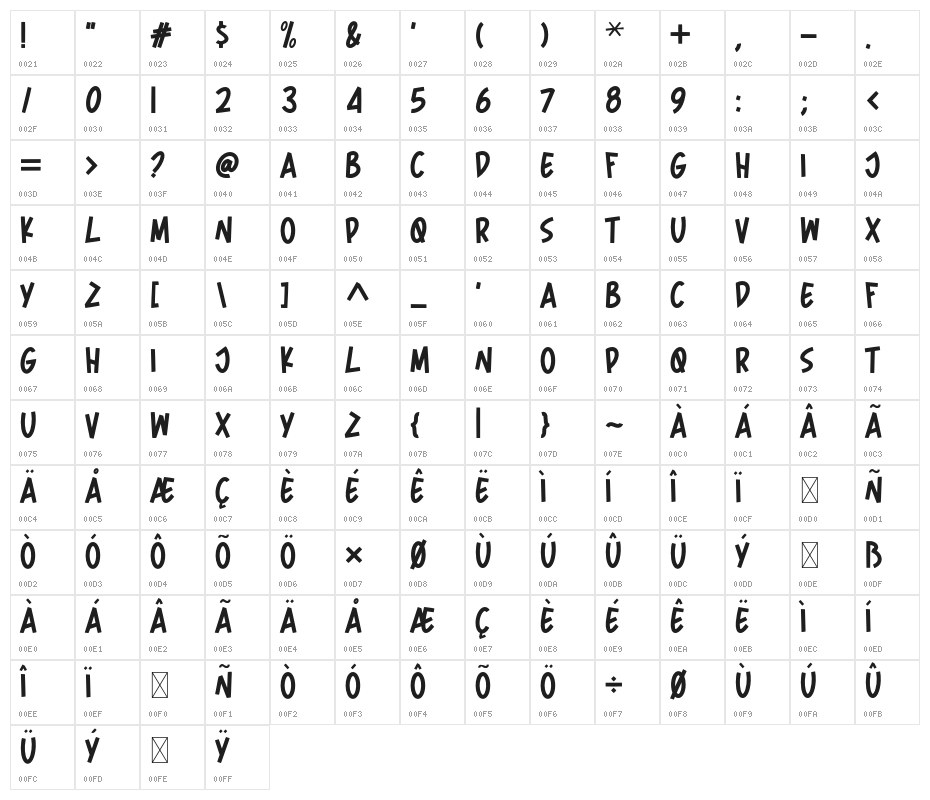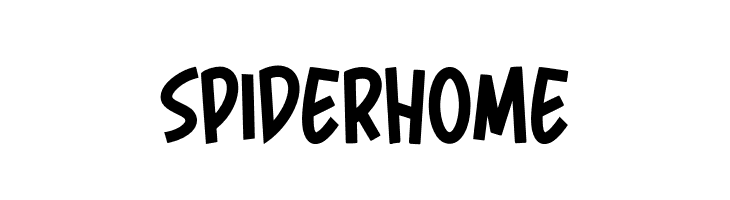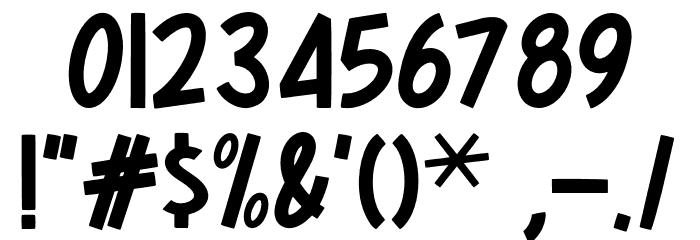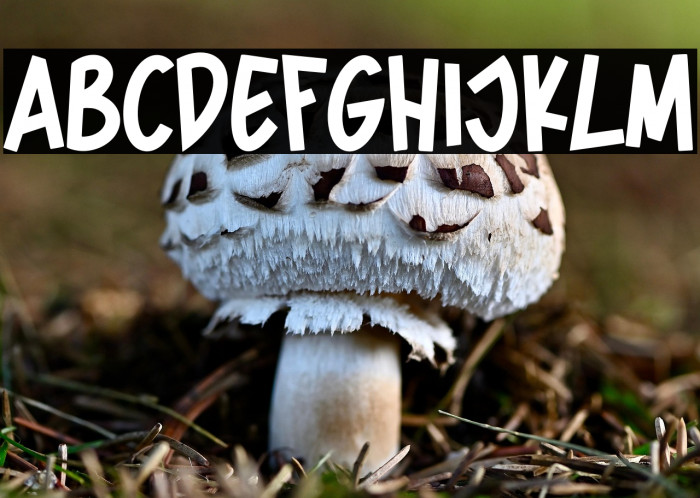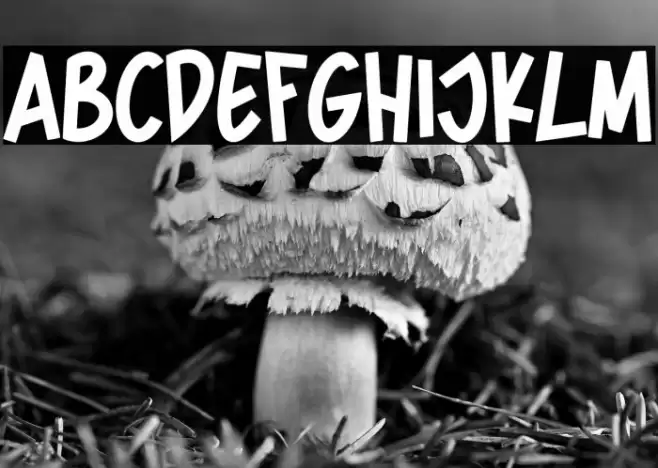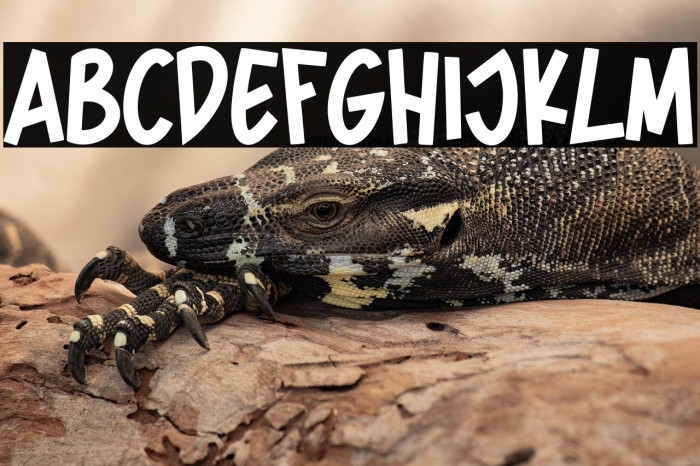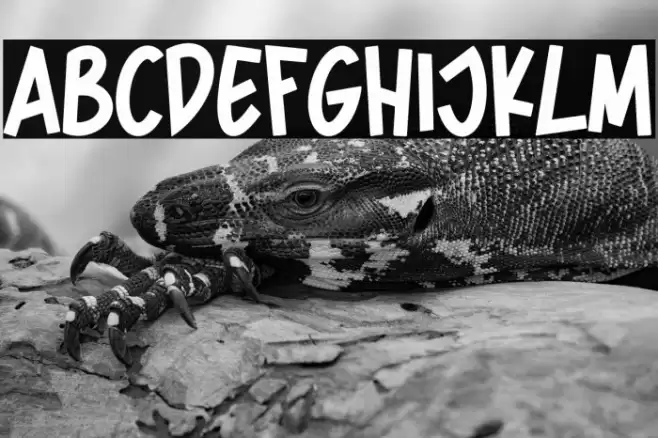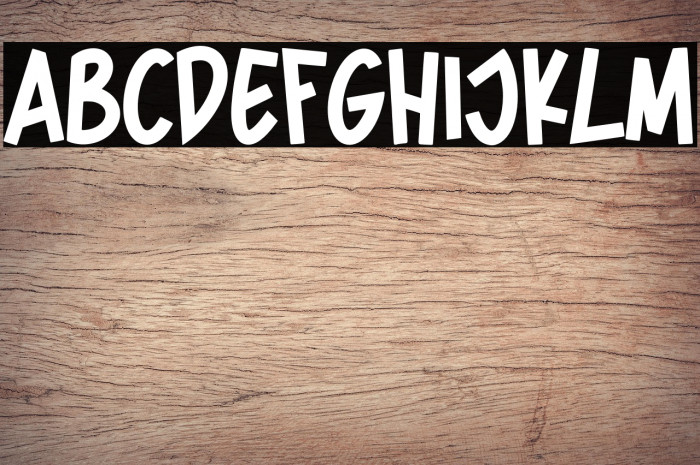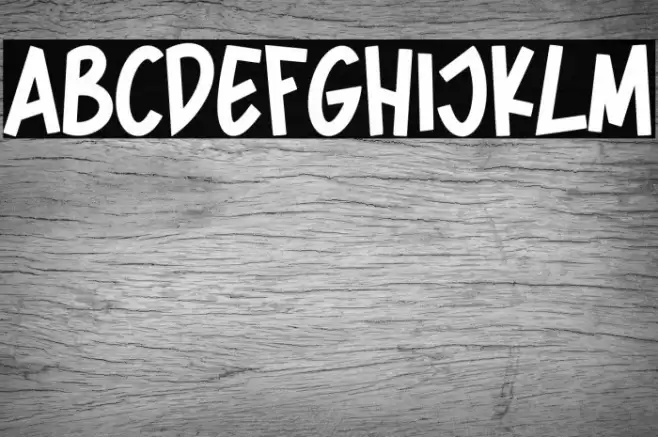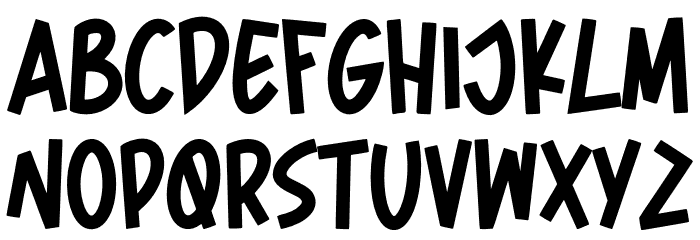
Spider Home Font
| Gesamtstil | Playful, Casual |
| Vorgeschlagene Projekte | Perfect for comic books, children's books, posters, and playful branding projects. |